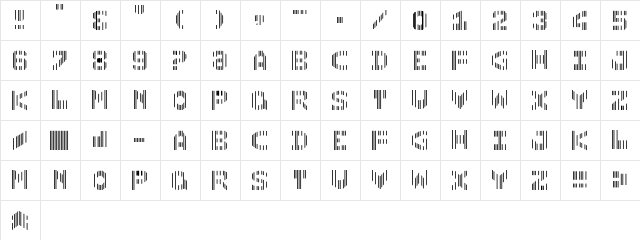
CMC7 Regular Font Preview
CMC7 Regular
CMC7 Regular Font Details
Design Context for CMC7 Typeface
CMC7 takes a measured approach to typography — its balanced proportions and neutral character make it a reliable workhorse for both digital and print work.